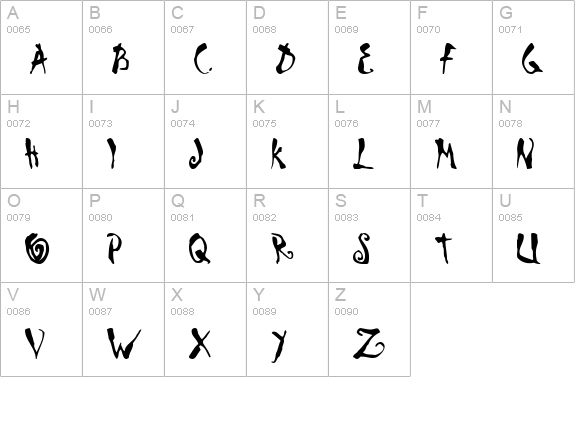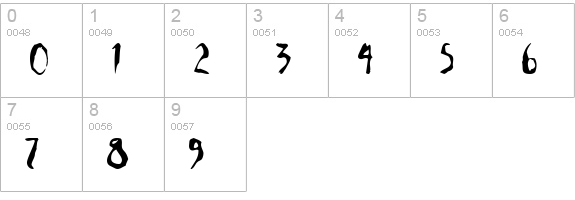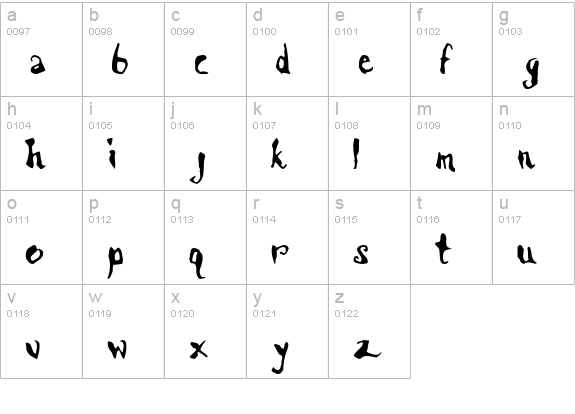
Scrawn AOE Font Details
Introducing Scrawn AOE, a remarkable font that effortlessly combines elegance with a touch of quirkiness. With its unique and playful design, Scrawn AOE is the perfect choice for those looking to add a touch of personality to their projects. This versatile font is not only visually captivating but also incredibly practical, making it suitable for a wide range of creative endeavors. Whether you're designing eye-catching logos, crafting captivating headlines, or creating stunning graphics, Scrawn AOE will undoubtedly make your work stand out. One of the best features of Scrawn AOE is that it is completely free to download. Yes, you read that right - this incredible font is freely available to download at FontsMarket.com. So, not only do you get a font that will take your designs to the next level, but you also get it without having to spend a dime. Scrawn AOE's sleek and modern letterforms effortlessly flow together, creating a harmonious and visually pleasing look. Its slightly condensed shape adds a touch of sophistication, while its bold strokes and unique quirks inject a sense of playfulness and originality. With a wide range of uppercase and lowercase characters, as well as numerals and punctuations, Scrawn AOE offers endless possibilities for your design projects. Whether you're going for a chic and minimalist look or a bold and expressive style, this font has got you covered. So why wait? Head over to FontsMarket.com and download Scrawn AOE today. With its free availability and exceptional design, this font is a game-changer for any creative endeavor. Don't miss out on the opportunity to add a touch of elegance and quirkiness to your designs - grab Scrawn AOE and let your creativity soar.